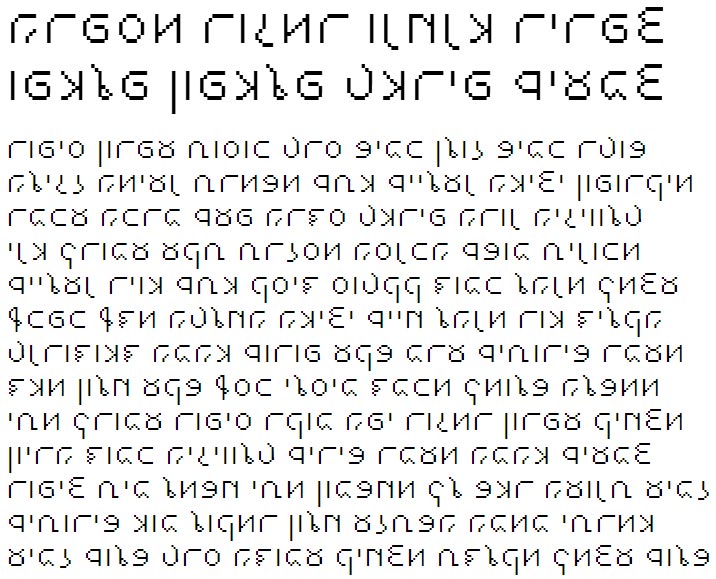
✓ One of my most recognized fonts was born as "Fixie", rematerialized as a better, "Fixier" (and was added a light weight), and now it's "Stanger", named after the person I named this font after in the first place. I guess it's my fourth font, and in my opinion, the first Hebrew font created in a matrix of 4 by 4 pixels. This harsh limitation caused a very unmistakable one-of-a-kind "Shin". Today, five years after the original font came out, I added a cursive style, that examplifies the basic idea upon the original letters were built.
X_Stanger Cursive Hebrew Font
โœ“ ืื—ื“ ื”ืคื•ื ื˜ื™ื ื”ืžื•ื›ืจื™ื ื‘ื™ื•ืชืจ ืฉืœื™ ื ื•ืœื“ ื‘ืชื•ืจ "Fixie", ื”ืคืš ืœื—ื•ืžืจ ื˜ื•ื‘ ื™ื•ืชืจ, "Fixier" (ื•ื”ื•ืกืคื” ืœื• ืžืฉืงืœ ืงืœ), ื•ืขื›ืฉื™ื• ื–ื” "Stanger", ืขืœ ืฉื ื”ืื“ื ืฉืงืจืืชื™ ืœื’ื•ืคืŸ ื”ื–ื” ื‘ืจืืฉื•ืŸ ืžืงื•ื. ืื ื™ ืžื ื™ื— ืฉื–ื” ื”ืคื•ื ื˜ ื”ืจื‘ื™ืขื™ ืฉืœื™, ื•ืœื“ืขืชื™ ื”ืคื•ื ื˜ ื”ืขื‘ืจื™ ื”ืจืืฉื•ืŸ ืฉื ื•ืฆืจ ื‘ืžื˜ืจื™ืฆื” โ€‹โ€‹ืฉืœ 4 ืขืœ 4 ืคื™ืงืกืœื™ื. ื”ืžื’ื‘ืœื” ื”ืงืฉื” ื”ื–ื• ื’ืจืžื” ืœ"ืฉื™ืŸ" ื—ื“ ืคืขืžื™ ืฉืื™ืŸ ืœื˜ืขื•ืช ื‘ื•. ื”ื™ื•ื, ื—ืžืฉ ืฉื ื™ื ืœืื—ืจ ื™ืฆื™ืืช ื”ื’ื•ืคืŸ ื”ืžืงื•ืจื™, ื”ื•ืกืคืชื™ ืกื’ื ื•ืŸ ืงื•ืจืกื™ื‘ื™, ืฉืžื“ื’ื™ื ืืช ื”ืจืขื™ื•ืŸ ื”ื‘ืกื™ืกื™ ืขืœ ื”ืื•ืชื™ื•ืช ื”ืžืงื•ืจื™ื•ืช ืฉื ื‘ื ื•.